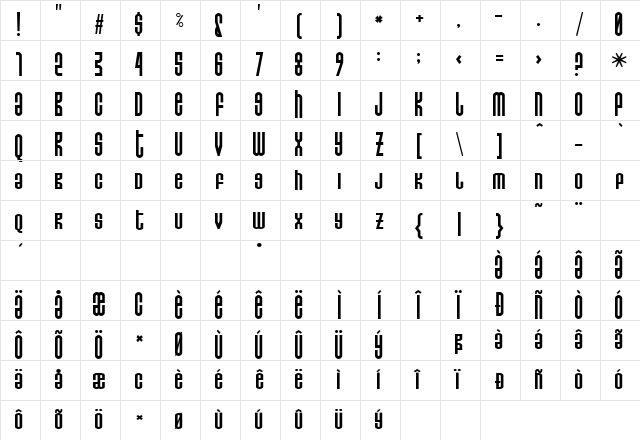
Do not eat this Regular Free Font
Do not eat this Regular
Do not eat this is a composed and adaptable typeface that performs quietly and consistently across a wide range of design contexts.
Pro Tip: Use Do not eat this in both headline and body roles to test its range before committing to a single application.